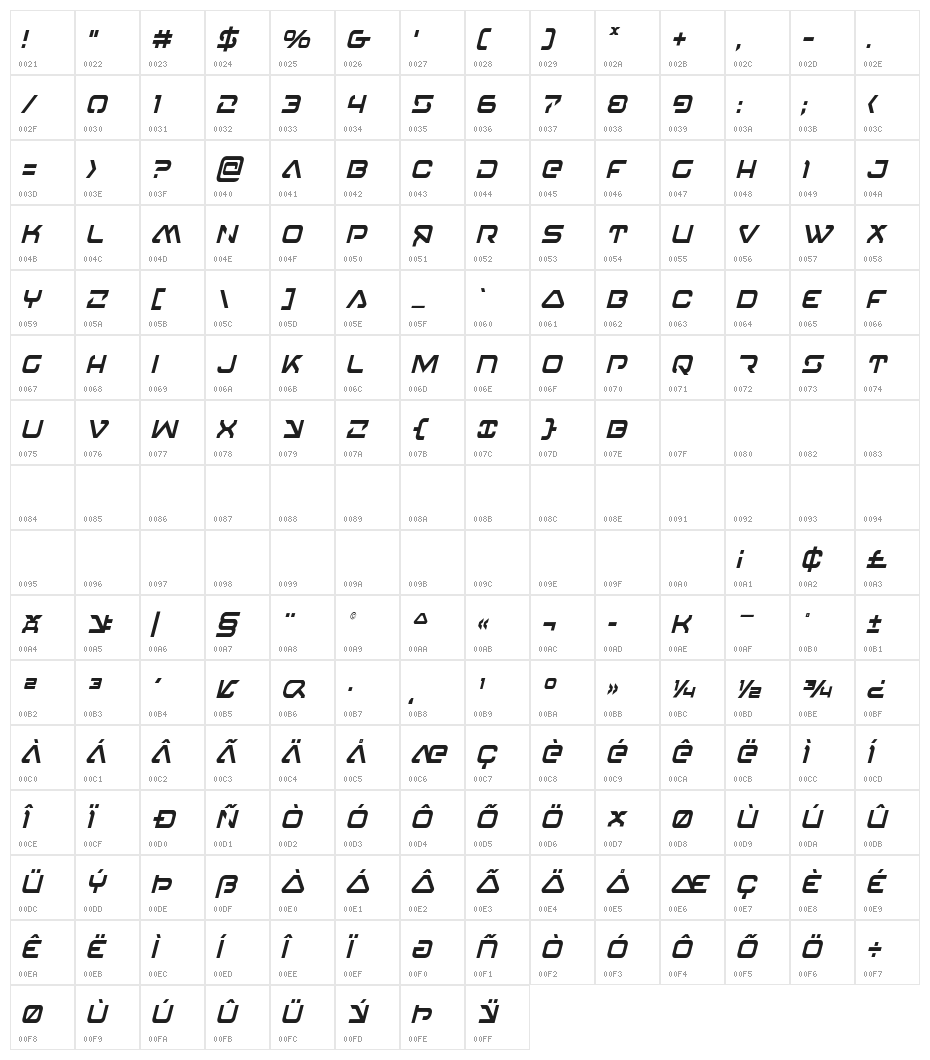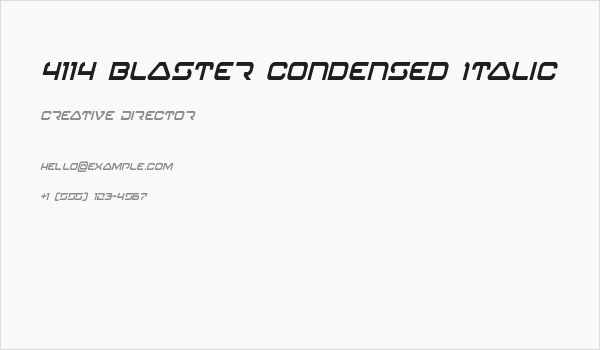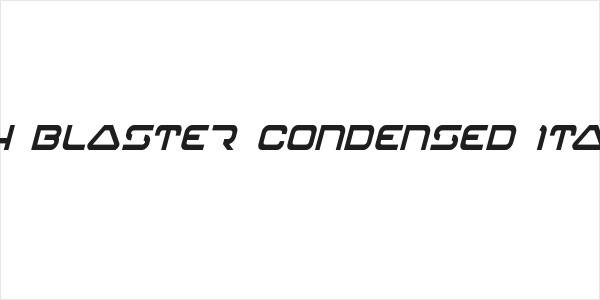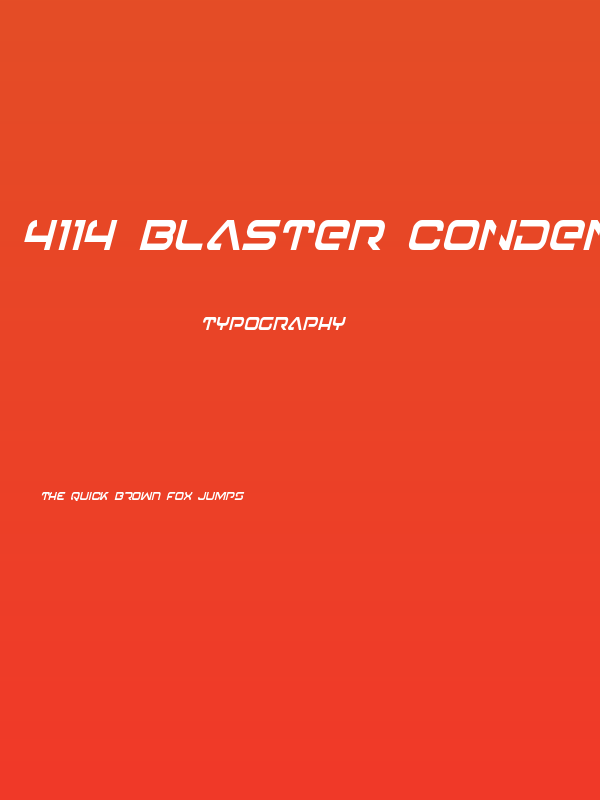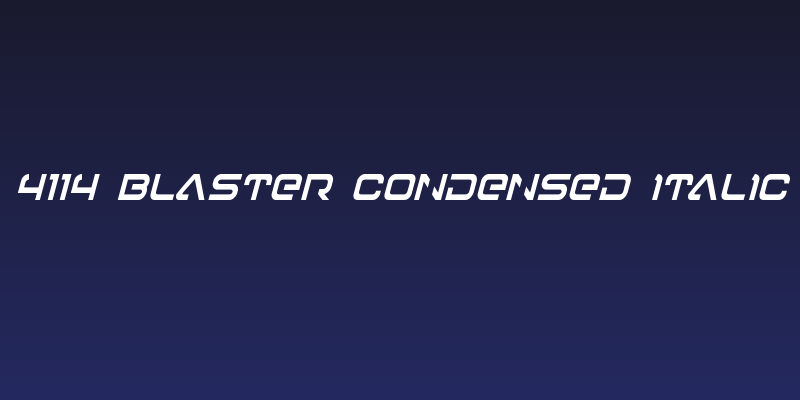
4114 Blaster Condensed Italic Font
4114 Blaster Condensed Italic Description
This font features a futuristic and dynamic design, characterized by its sharp angles and sleek lines. The letters are italicized, giving a sense of motion and speed. The condensed nature of the font allows for efficient use of space, making it ideal for bold statements. The uppercase and lowercase letters maintain a consistent style, with a unique geometric flair that adds a modern touch. Numbers and special characters are designed to match the overall aesthetic, ensuring a cohesive look across all text elements.
| Proposed Projects | Ideal for sci-fi themed projects, technology branding, video game titles, and dynamic posters. |